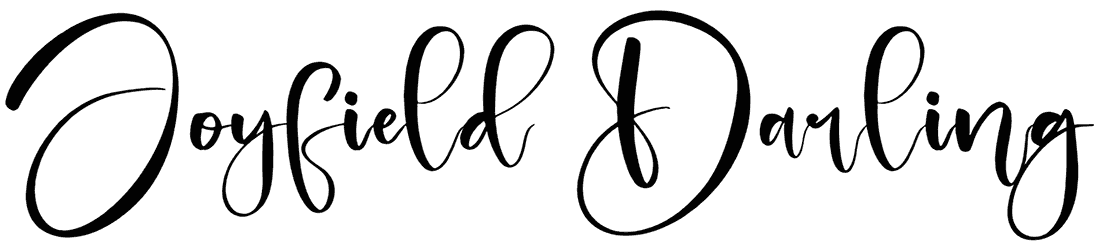
Joyfield Darling Font
For centuries, the thin handwritten calligraphy style has been a fancy element on anything, and Joyfield Darling is here to be that element. This script font gives an illusion of handwritten words to your work, and when its characters sit together to form words, they get an elegant, continuous style.
This feminine font can be good for writing virtual letters, wedding invitations, fashion blog headers, magazine titles, and romantic flyers. Joyfield Darling contains two fonts in normal and italic styles.